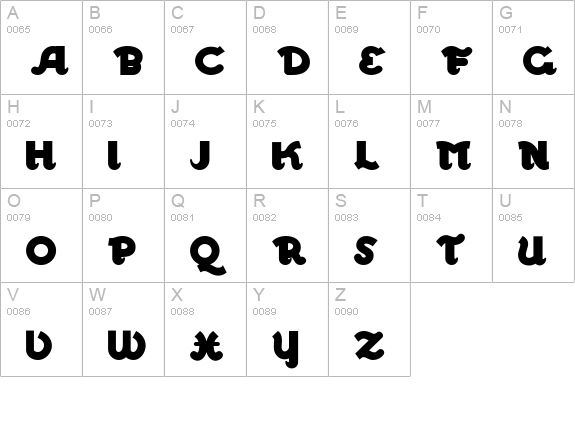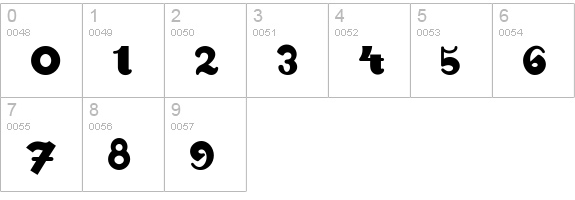
Walrus Gumbo NF Font Details
Walrus Gumbo NF font is a whimsical and playful typeface that exudes charm and character. Its rounded and slightly irregular shapes give it a unique and friendly look, making it perfect for a variety of design projects. The font is free to download at FontsMarket.com, making it accessible to all who want to add a touch of fun to their creations. With its bold and eye-catching appearance, Walrus Gumbo NF font is sure to make a statement and bring a smile to anyone who sees it. Whether you're designing a poster, greeting card, or logo, this free font is a great choice to add a touch of creativity and personality to your work.